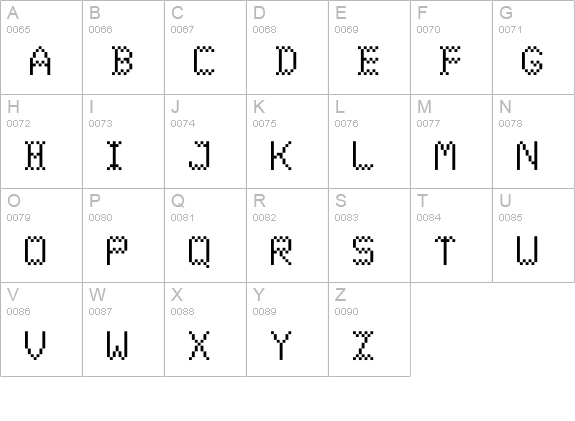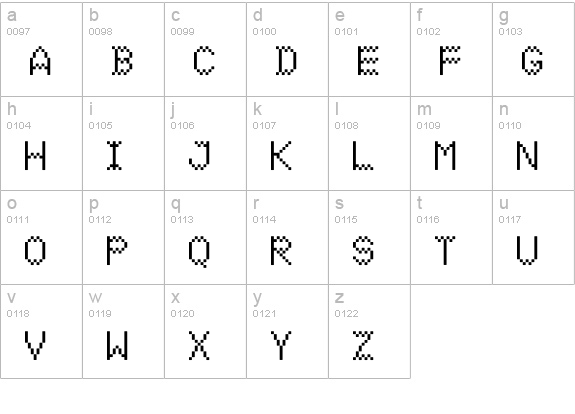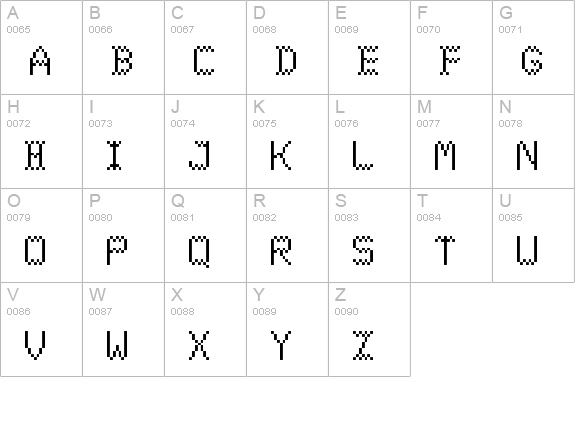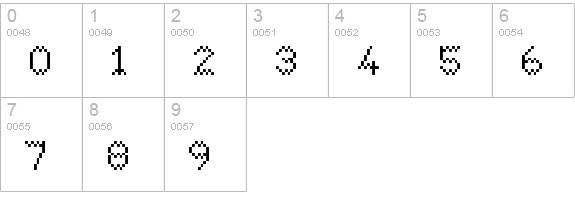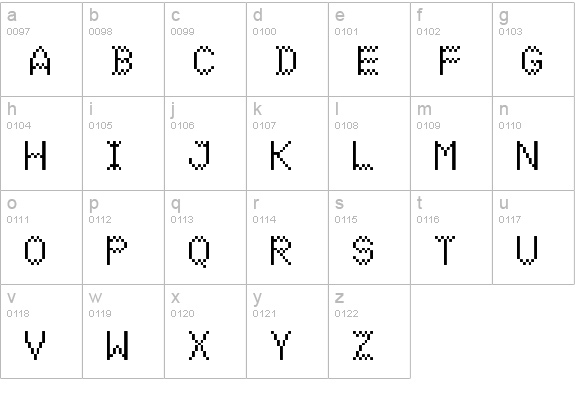
DS Ticket35 Font Details
DS Ticket35 font is a modern and stylish typeface that is perfect for a wide range of design projects. With its sleek lines and contemporary look, this font is sure to make your text stand out. The unique design of DS Ticket35 font gives it a distinctive edge, making it a popular choice for branding, advertising, and more. One of the best things about DS Ticket35 font is that it is freely available to download at FontsMarket.com. This means that you can easily access this high-quality font without any cost, making it a fantastic option for both personal and commercial use. Whether you're working on a logo design, website, or any other project, DS Ticket35 font is sure to add a touch of elegance and sophistication. Download it today and take your design to the next level!